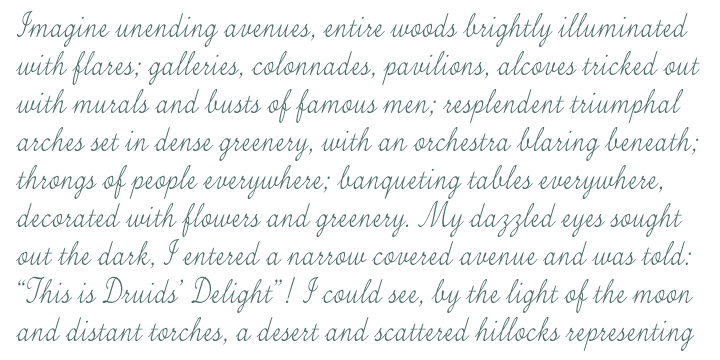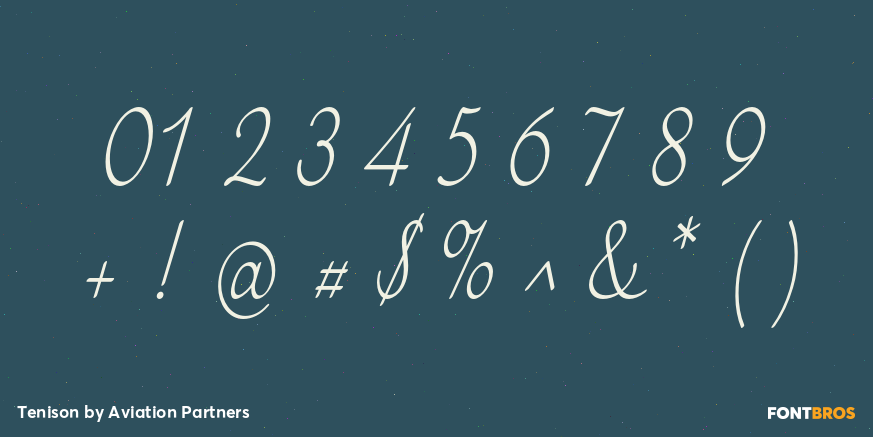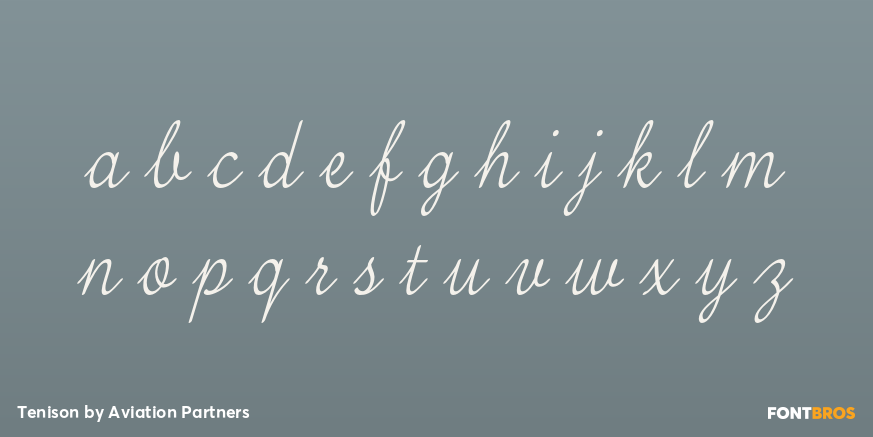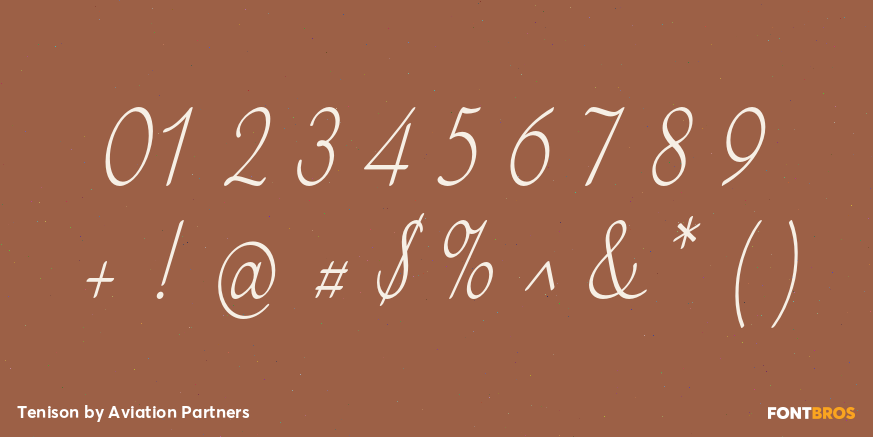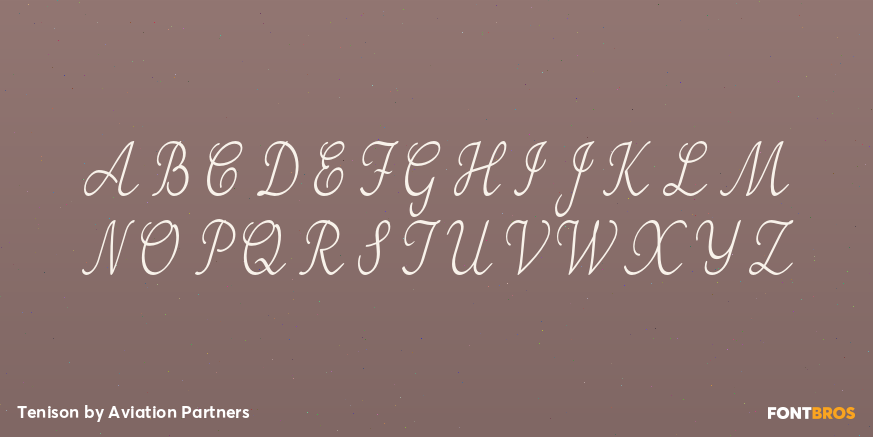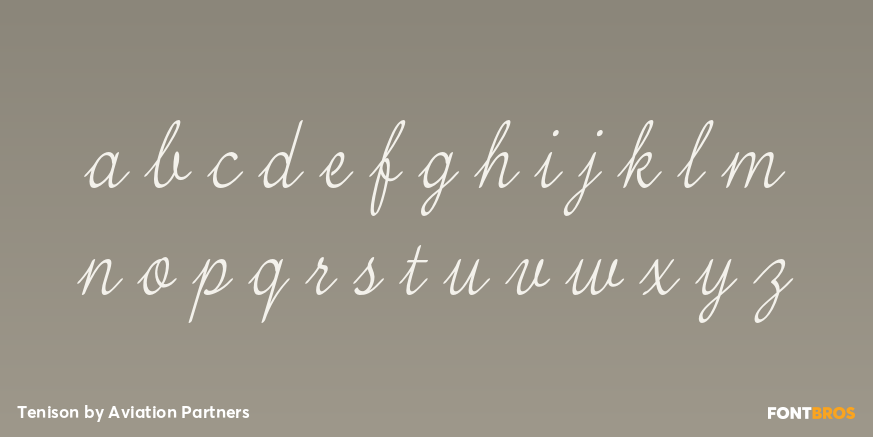
Tenison
Font Family by Aviation Partners
Tenison is a semi-formal script which echoes the way the designer was taught to write in school.
It is not overly decorative and it is highly legible.
All lowercase characters link with each other, just as we were taught.